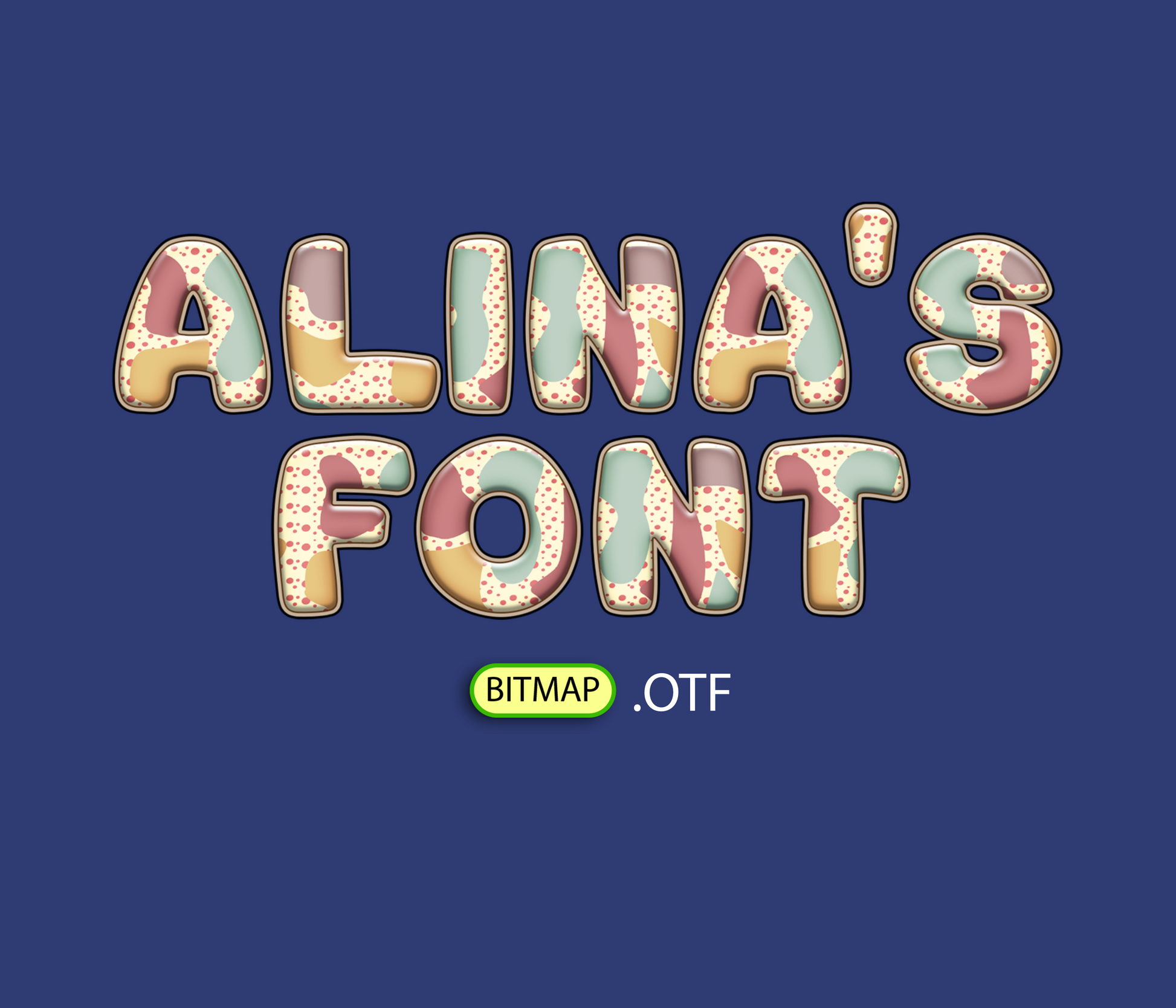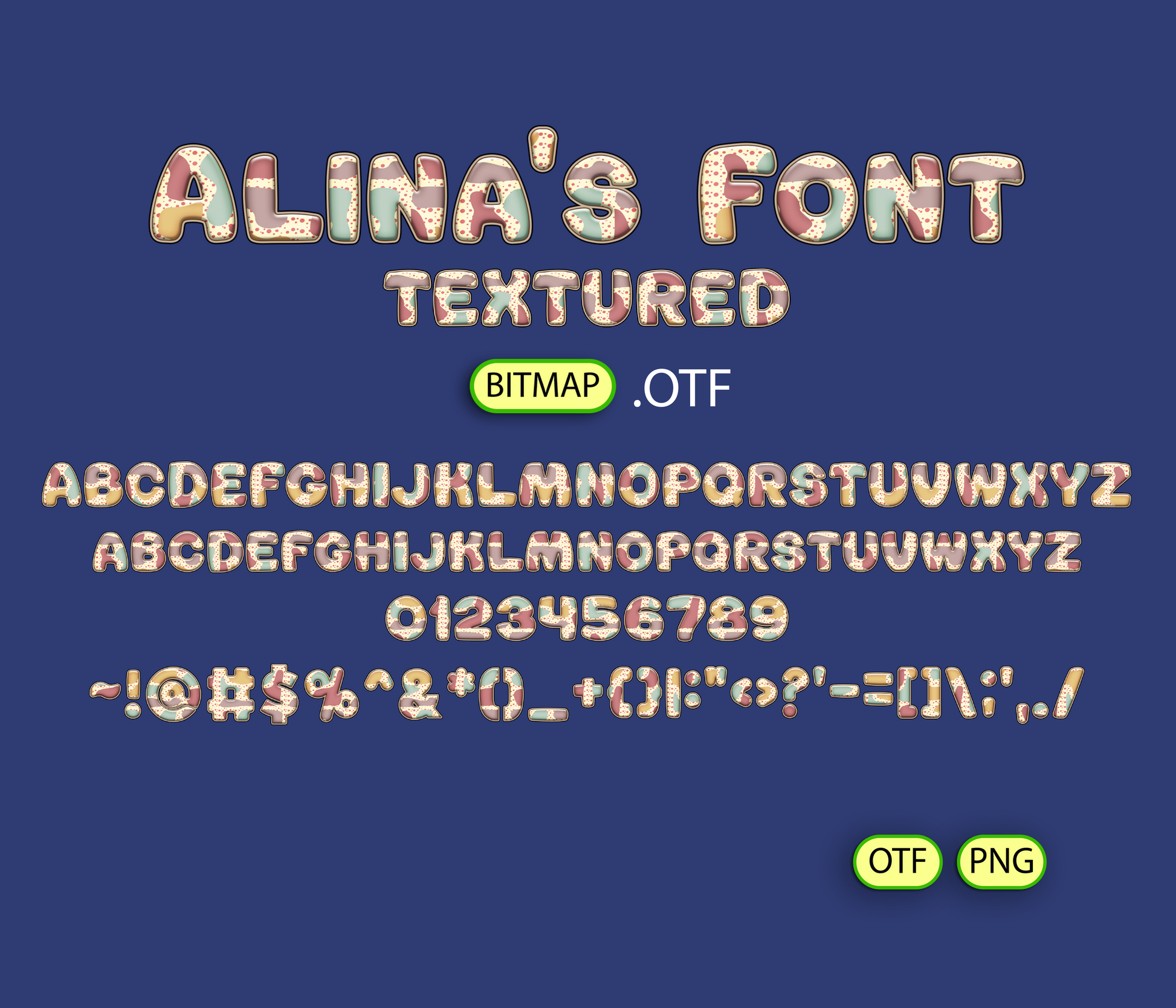
FREE Scattered Elements Pattern Font
Scattered Elements Typeface Textured
Explore the fascinating realm of unpredictable design with our Scattered Elements Typeface, embodying the spirit of fluid forms and organic randomness. Crafted for contemporary studios, artistic collectives, creative agencies, and design innovators, this font channels the free-flowing, experimental energy of abstract sculptures and morphing patterns into your visual projects. Develop captivating layouts, modern-themed merchandise, or multimedia content with the spontaneous, artistic character of broken symmetries and intersecting planes.
Our Scattered Elements Typeface showcases erratic, puzzle-inspired contours and wild letterforms that mirror the liberated yet intentional nature of deconstructed artistry. Outstanding for:
- Creative Agencies: Generate distinctive brand presence, portfolio displays, and marketing materials for design firms, artistic collaboratives, and experimental studios
- Contemporary Art: Exceptional for gallery openings, abstract art showcases, and exhibition materials that celebrate non-conformist visual expression
- Digital Platforms: Transform websites, creative blogs, and social media with unconventional typography that radiates innovation and artistic freedom
- Design Education: Incorporate authentic experimental flair into typography courses, design theory publications, and promotional content for creative institutions
- Artistic Ventures: Add abstract sophistication to artist portfolios, experimental crafts, and interior projects inspired by deconstructionist aesthetics